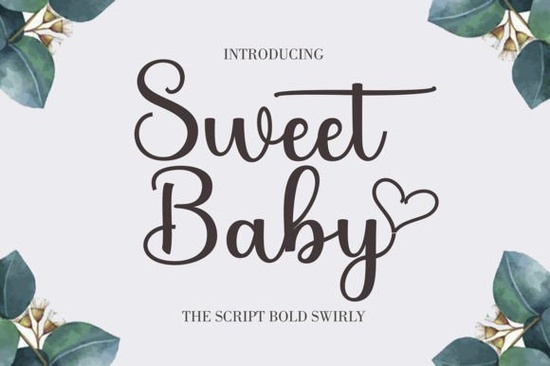
If you’re working on a project that needs a soft, elegant handwritten touch, Sweet Baby Font offers exactly that. This light script font carries a delicate, airy feel while still making an impact. It’s the kind of typeface that adds a subtle luxury to wedding invitations, branding materials, or any design where you want a handcrafted, personal look. The key is its balance smooth curves without being too busy, and a weight that stays readable even at smaller sizes.
What makes Sweet Baby Font different from other script fonts?
Many handwritten fonts lean either too casual or overly ornate. Sweet Baby Font sits in a sweet spot: it feels natural and flowing, yet refined. The letterforms have a consistent slant and gentle loops that give it a cohesive rhythm. This makes it a strong choice for longer text like quotes or product descriptions, not just short headlines. Unlike some monoline scripts, it has slight variation in stroke thickness, which adds character without losing legibility.
If you prefer a more uniform, modern look, you might enjoy the clean lines of the Monoline Boho Font. But for that extra spark of elegance, Sweet Baby Font stays a standout.
Which projects work best with Sweet Baby Font?
This font shines in designs where you want to convey warmth and sophistication. Here are a few real-world applications:
- Wedding stationery – Save-the-dates, invitations, and thank-you cards gain a romantic feel.
- Logo and branding – Small businesses, boutiques, or beauty brands can use it for a memorable, feminine identity.
- Social media graphics – Quotes, product announcements, and story highlights become more inviting.
- Print-on-demand products – T-shirts, mugs, and tote bags with short phrases look charming with this script.
- Greeting cards and wall art – The light weight pairs nicely with watercolor or floral elements.
Because it’s not too heavy, it also works well in digital planners and journals where you need a friendly but readable hand.
How does it compare to other script fonts in the same family?
If you’re building a font collection for varied projects, consider how Sweet Baby Font fits alongside similar styles. For a more formal, calligraphic look, the Camila Ashton Font offers higher contrast and swashes. For a rustic, vintage vibe, Rustic Wedding Font brings distressed edges and a hand-painted feel. And if you need something playful and bouncy, the Bunny Font is a fun alternative. Each serves a different mood, so having a few options helps you match the tone exactly.
How can designers get the most out of Sweet Baby Font?
One common challenge with light script fonts is maintaining readability, especially on dark backgrounds or small prints. Here are tips to avoid that:
- Pair with a simple sans-serif – Use a clean font like Montserrat or Lato for body text, letting Sweet Baby Font shine in headings.
- Adjust letter spacing – A little extra tracking (1-2 points) improves legibility in all-caps or short phrases.
- Test on different backgrounds – It works beautifully on light pastels and white, but on dark colors, consider adding a subtle outline or using a heavier weight if available.
- Layer with decorative elements – Swirls, underline flourishes, or simple icons enhance the handcrafted feel without clashing.
Who should download Sweet Baby Font?
This font suits a wide range of creative professionals and hobbyists:
- Wedding and event planners – Perfect for cohesive stationery suites that feel luxurious but not overbearing.
- Etsy sellers and print-on-demand creators – A unique script helps products stand out in a crowded marketplace.
- Small business owners – Use it in logos, menus, or signage to give your brand a personal touch.
- Crafters and scrapbookers – The light weight layers well with stickers, photos, and other embellishments.
- Digital product designers – Planners, journal covers, and social media templates become more engaging with this handwritten style.
Once you have it, start with a simple project like a greeting card or a logo draft. You’ll quickly see how Sweet Baby Font brings that warm, luxury spark without overcomplicating your design.